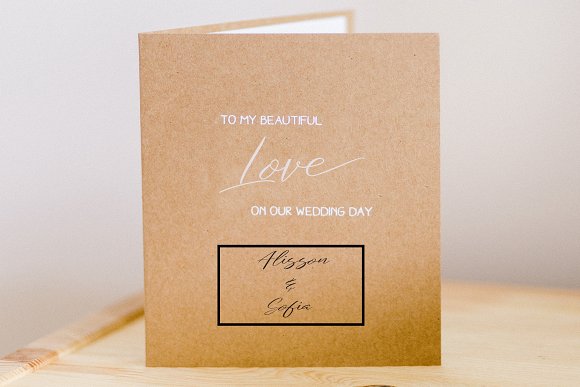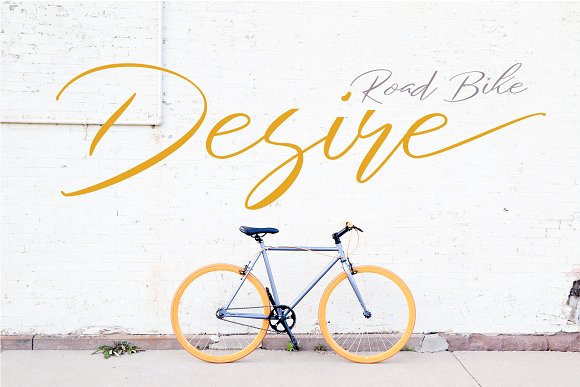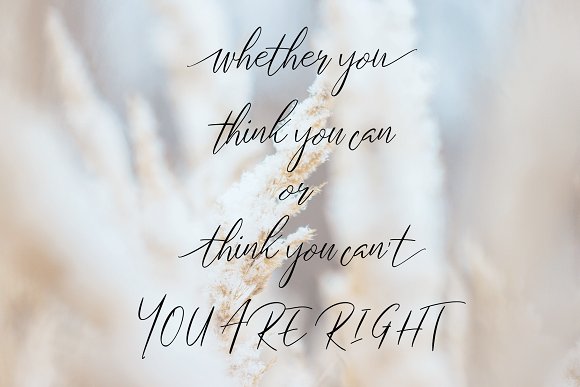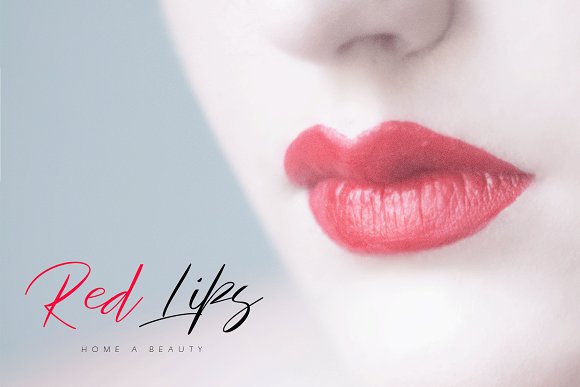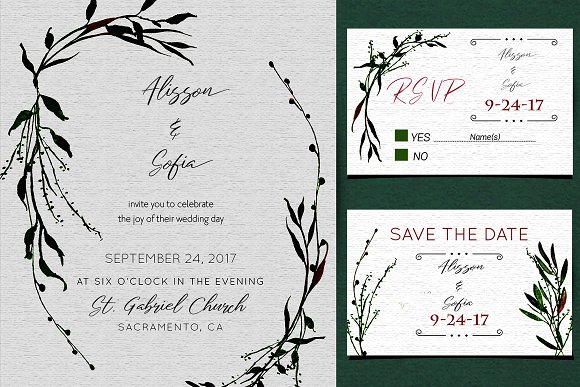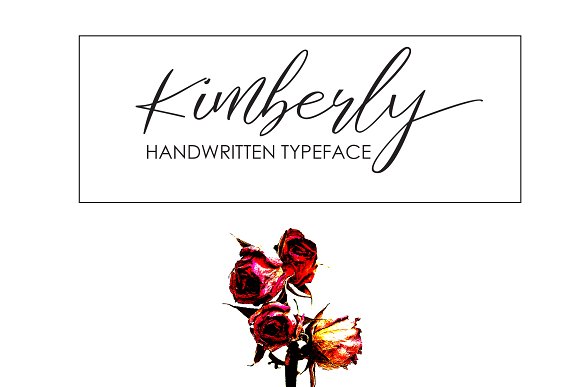
Kimberly Font
Kimberly is a beautiful and modern handwriting script Typeface. this font Suitable for any project products, such as wedding invitations, greeting cards, design of water-based paints, correspondence, quotes, logo, blog header, poster, banding, fashion, apparel, letter, invitation, stationery, etc. This font multiple international language support.